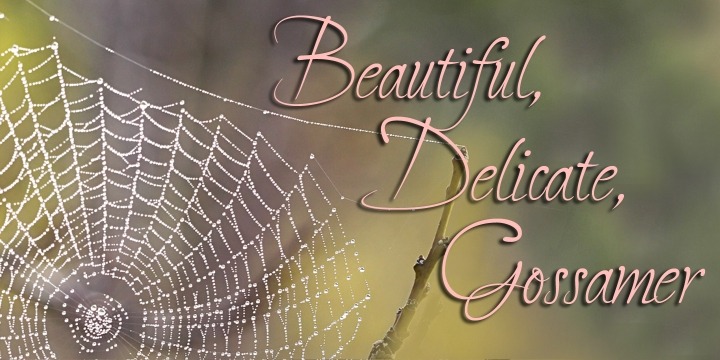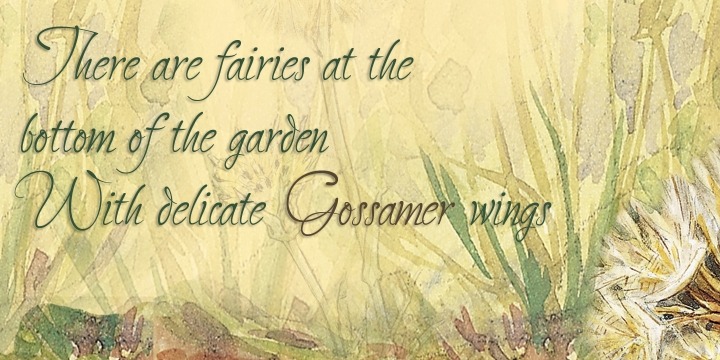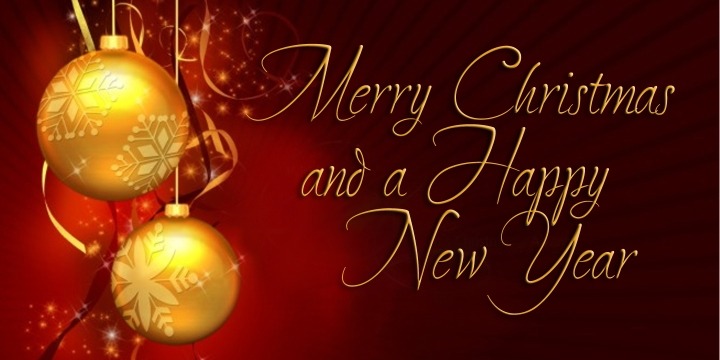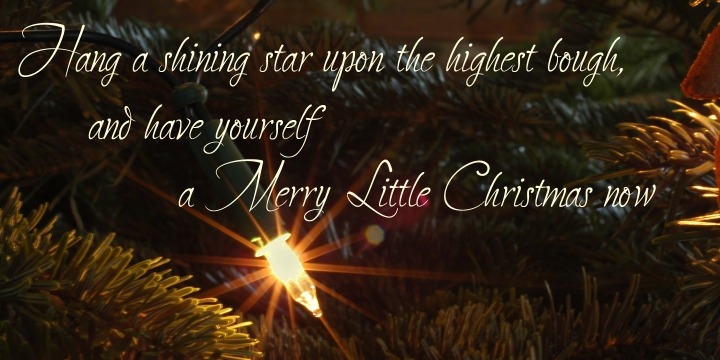
Gossamer
Font Family by Scholtz Fonts
Gossamer is a delicate, wispy font, with extravagant caps and controlled, softly curved lower case characters. It is reminiscent of fantasy and fairy lore, and wonderfully evokes the magic of childhood.
Use Gossamer for Christmas cards, for wedding stationery, for cosmetics and clothing, for romance and enchantment.